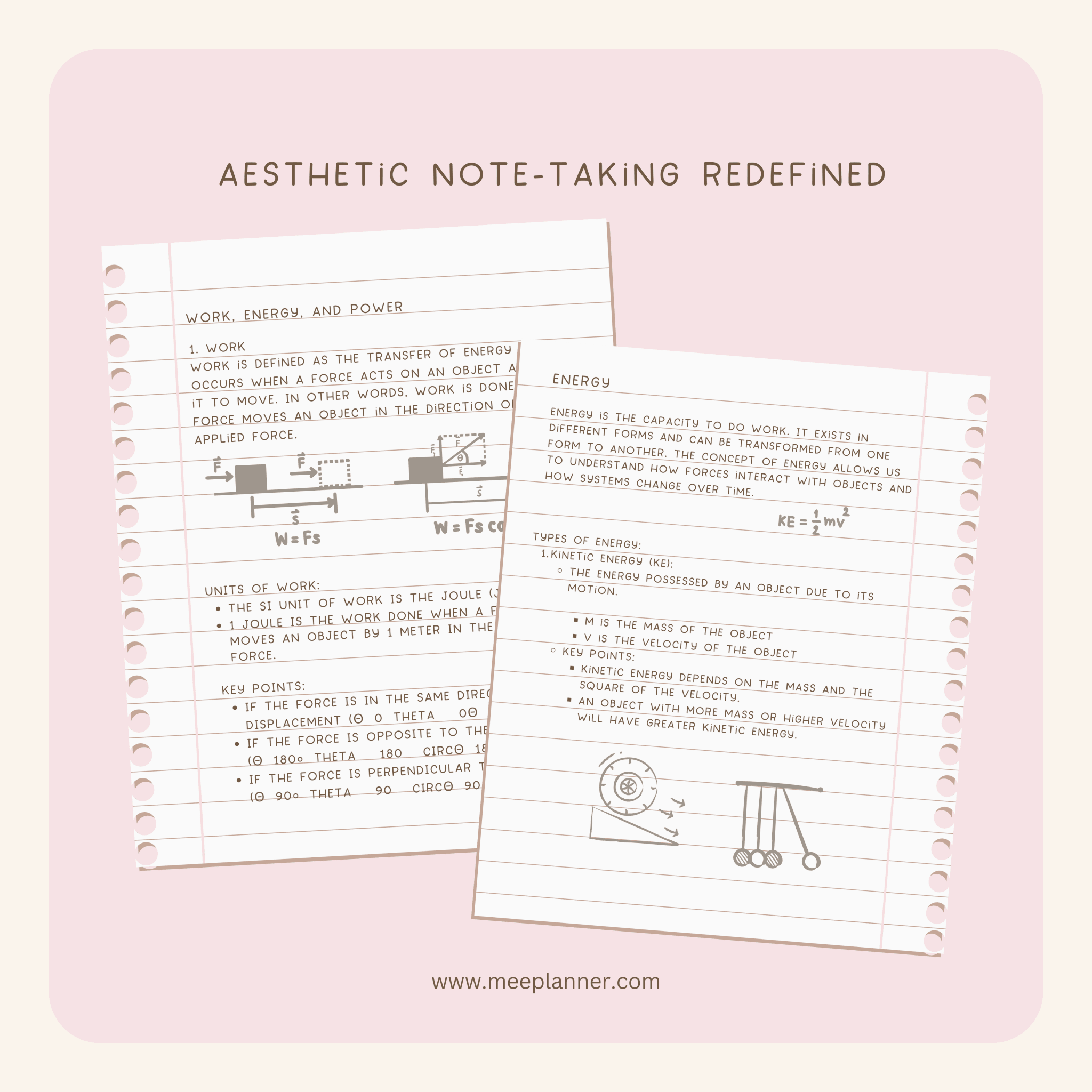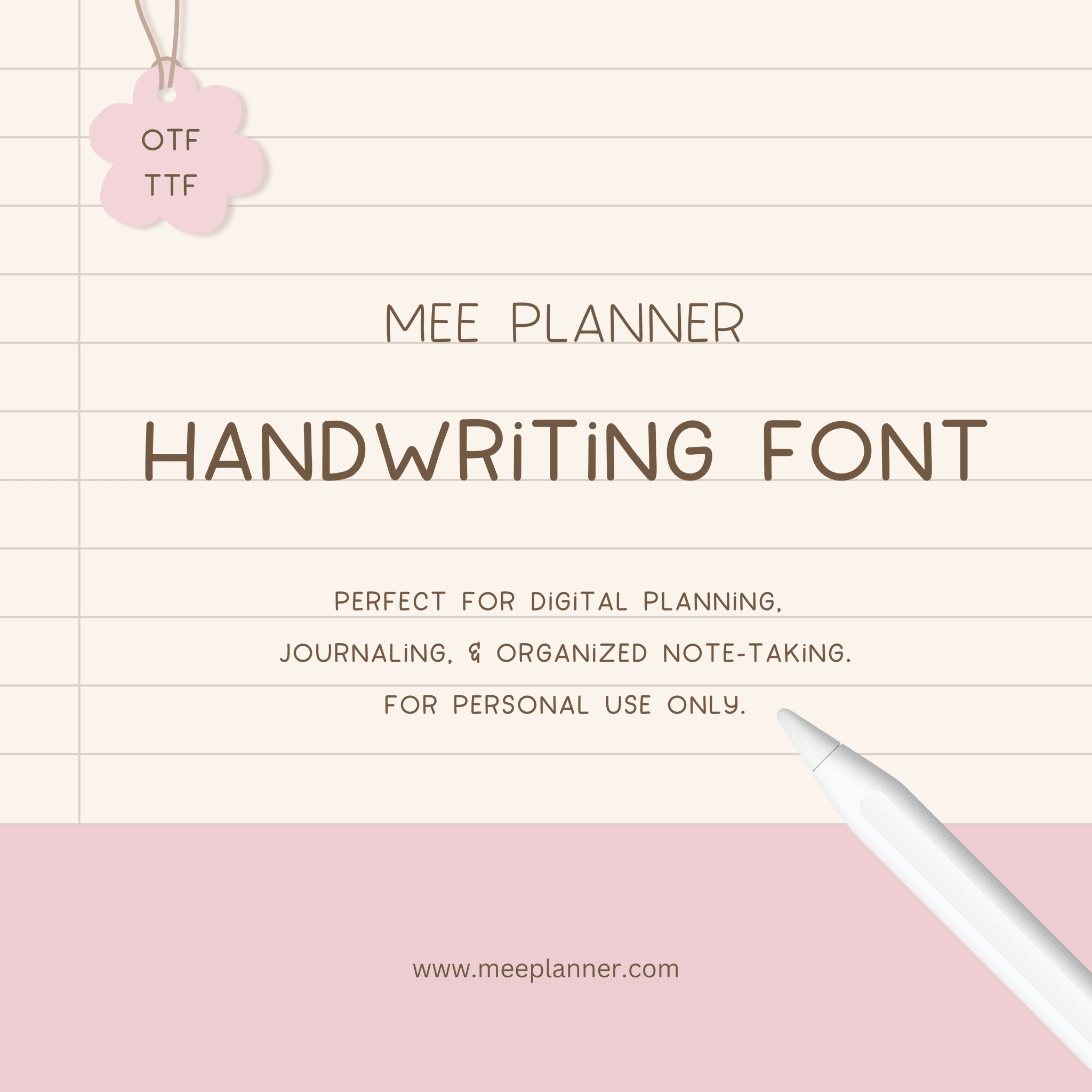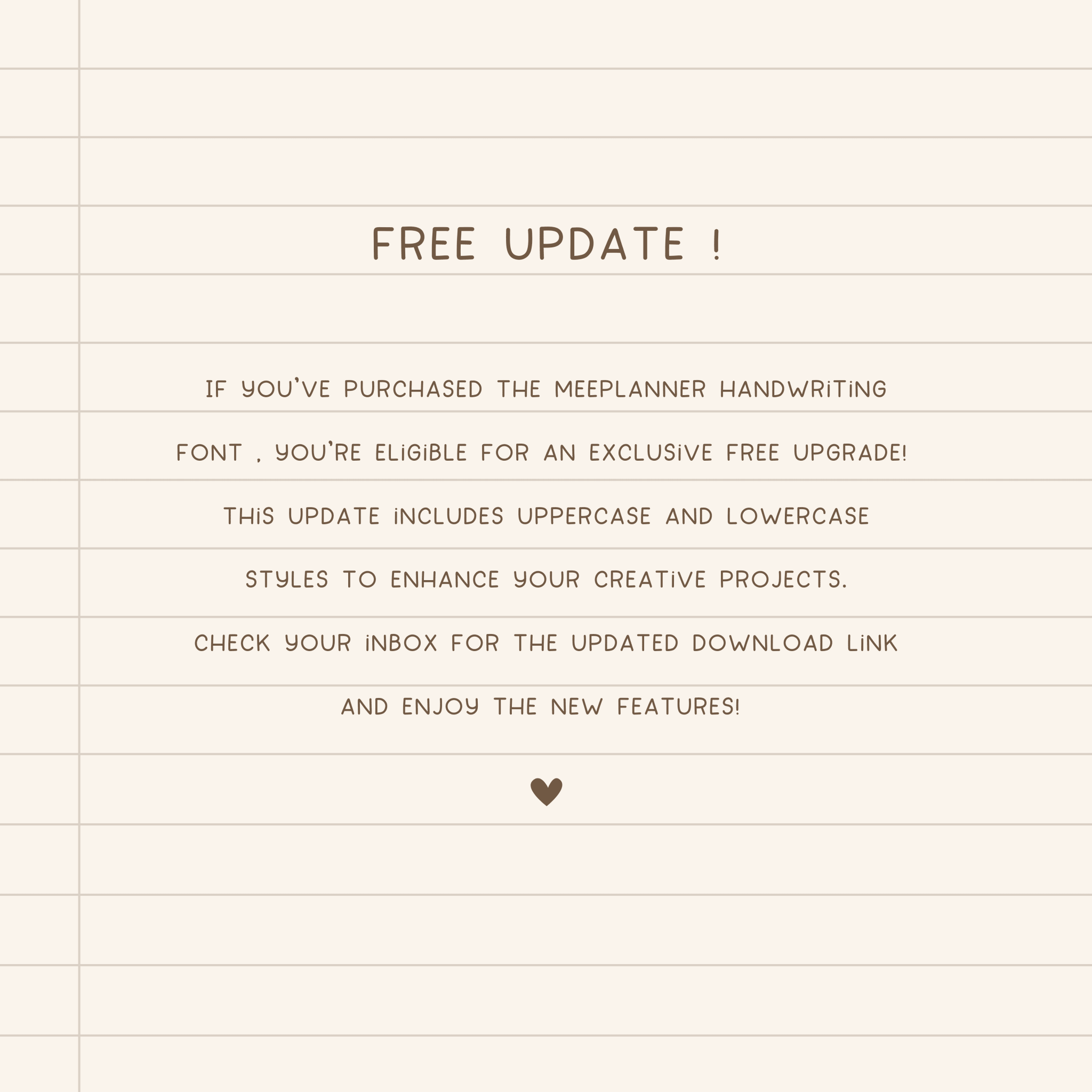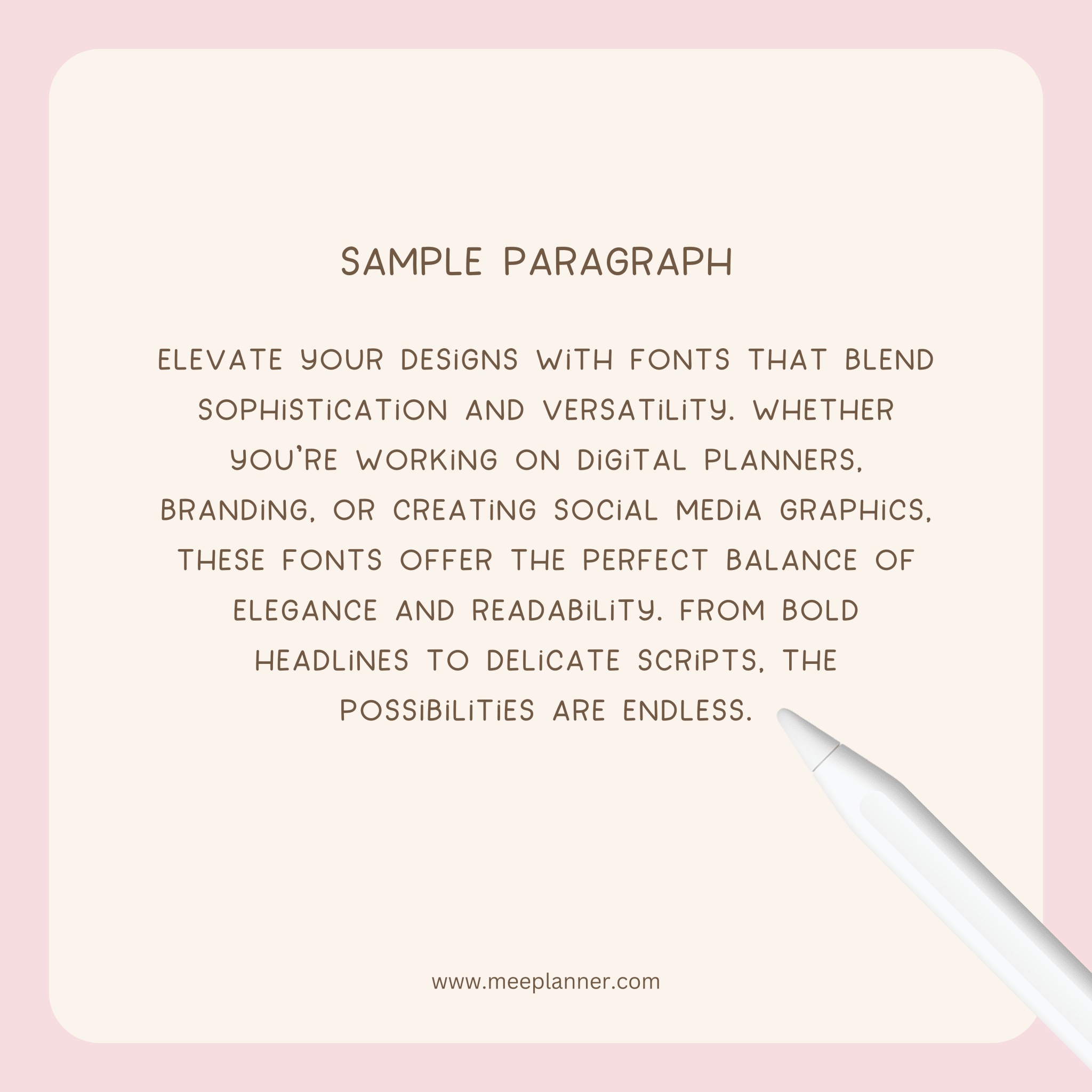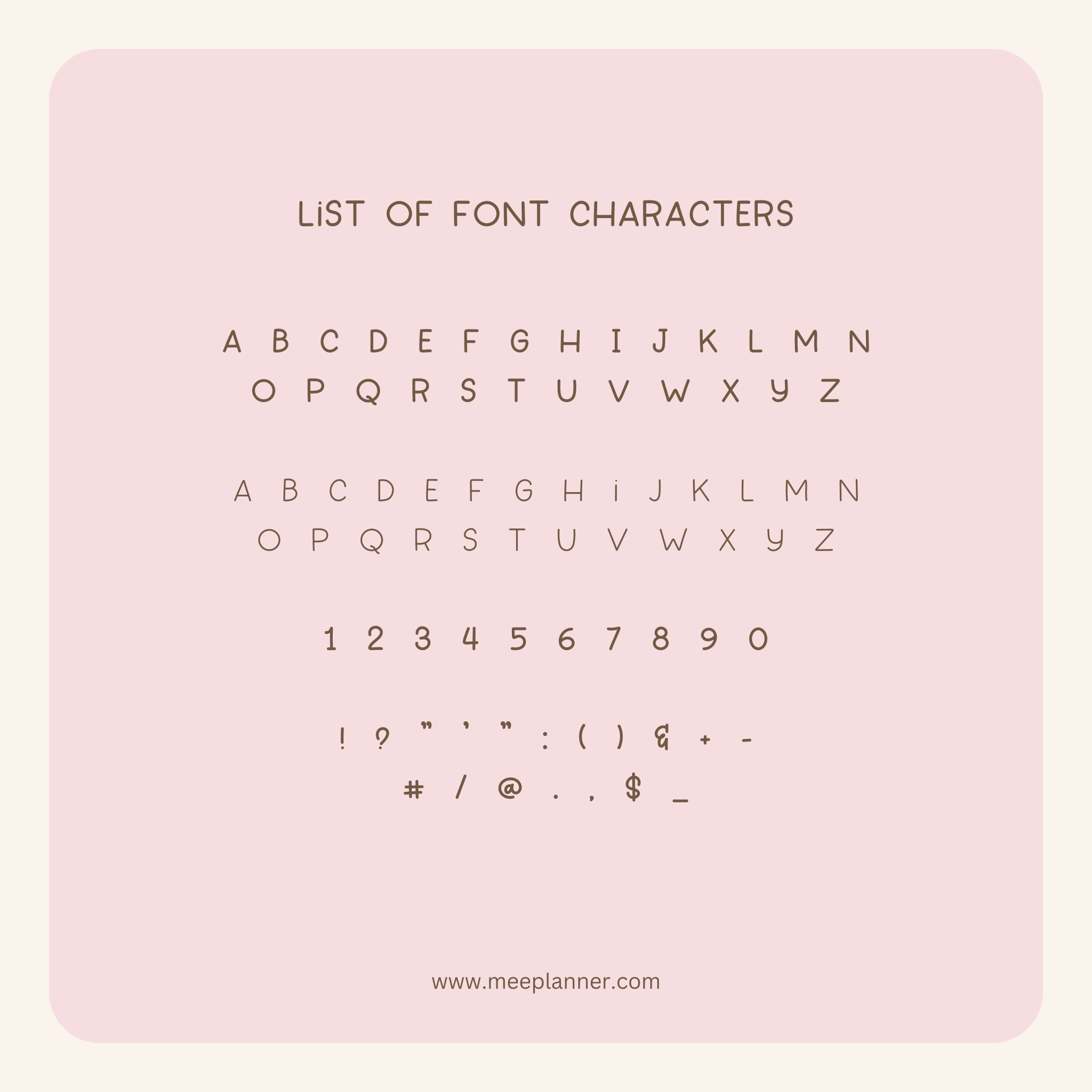
Bring elegance to your projects
Aesthetic Handwriting Font is crafted to infuse charm and sophistication into any project. Perfect for creating standout titles, invitations, and digital artwork, this font adds a personal touch with its graceful curves and smooth lines. Use it to make every word appear thoughtfully designed.
Versatile and easy to use
Designed with both professionals and hobbyists in mind, this font integrates seamlessly with various design tools. Its high legibility ensures that it stands out even in smaller text sizes. Suitable for branding, web design, and print materials, it elevates any visual communication effortlessly.
High-quality typography features
Enjoy advanced typographic elements such as ligatures and stylistic alternates with Aesthetic Handwriting Font. Each character is meticulously developed to maintain consistency across all digital platforms and print formats. This attention to detail makes the font not only beautiful but highly functional too.
Aesthetic Handwriting Font